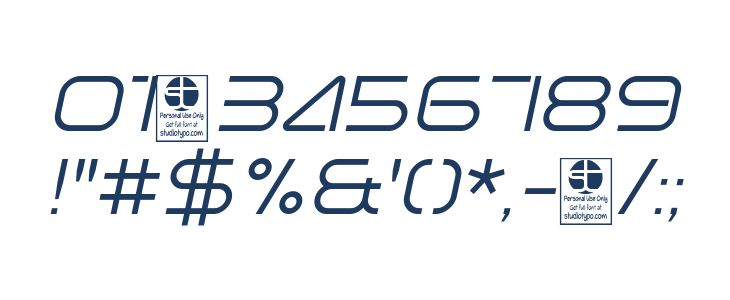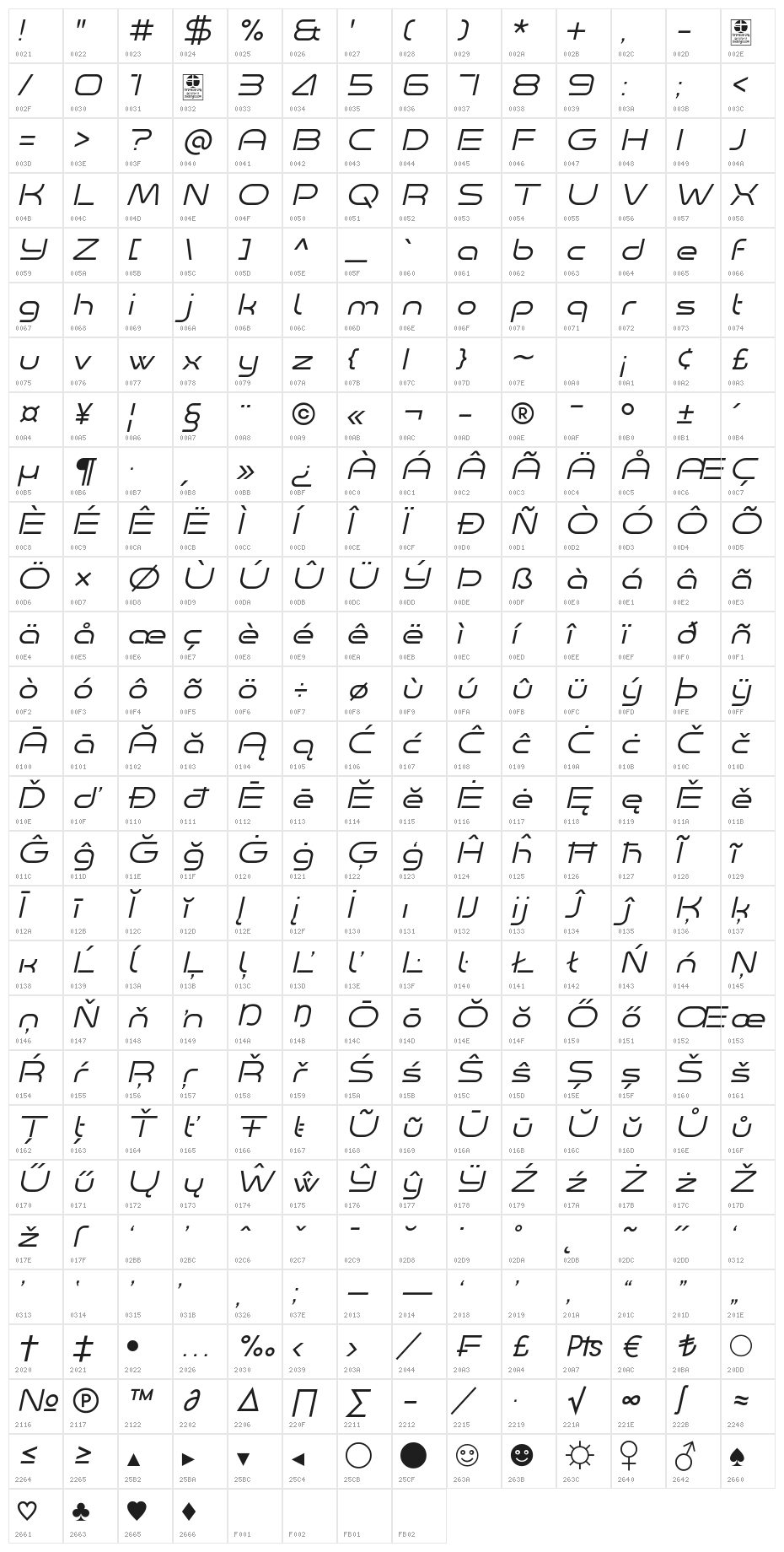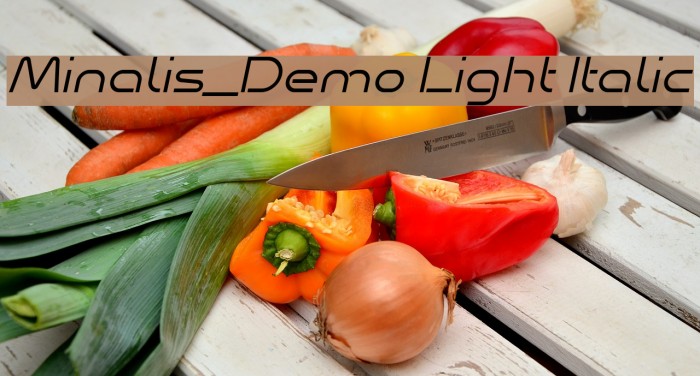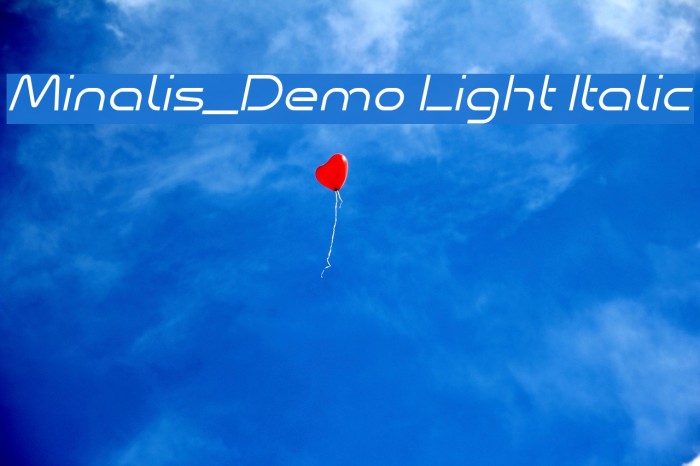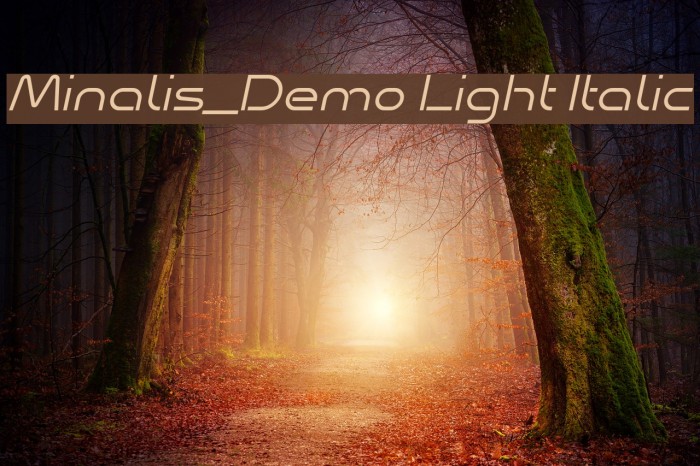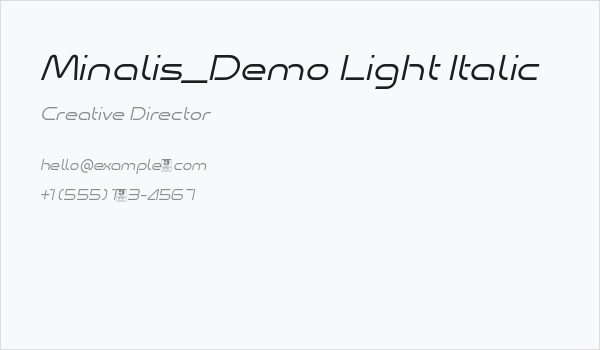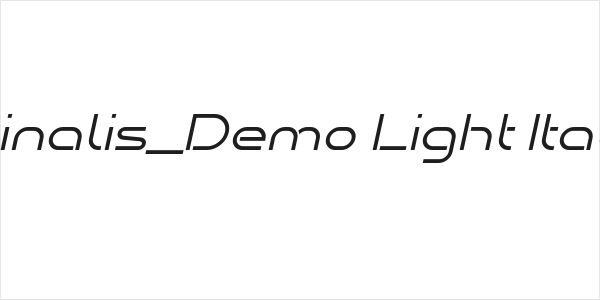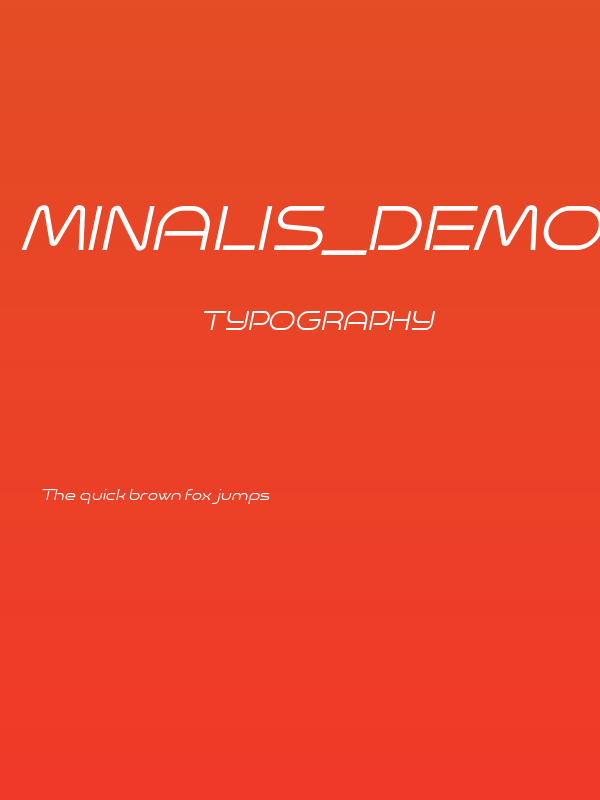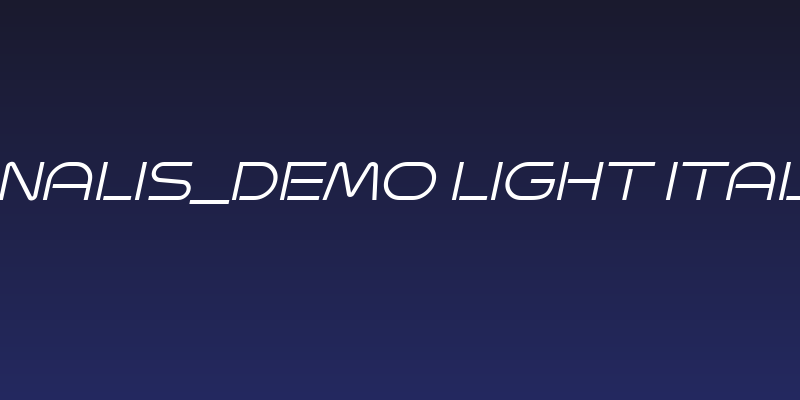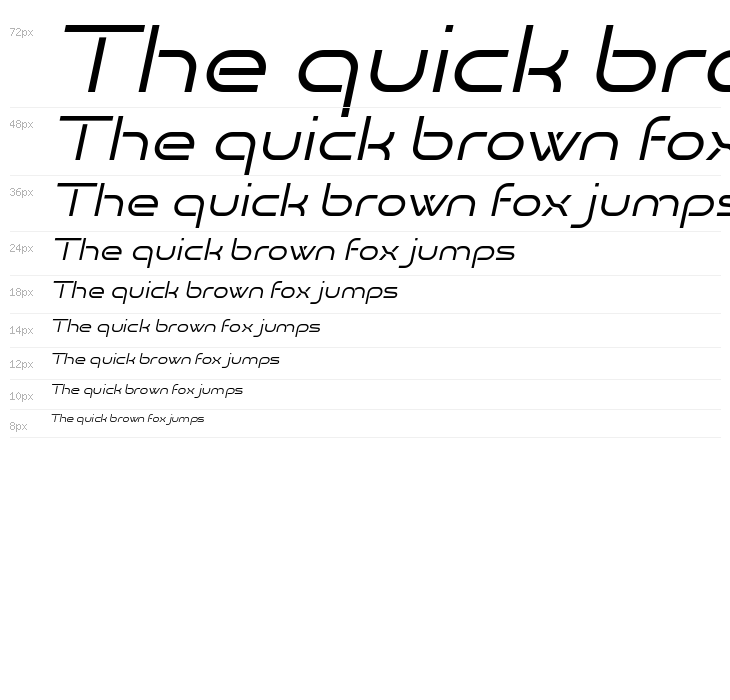
Minalis_Demo Light Italic Font
Minalis_Demo Light Italic Description
This font features a sleek and modern design with a light and airy feel. The characters are slightly italicized, giving them a dynamic and forward-leaning appearance. The strokes are consistent and smooth, with rounded edges that add a touch of softness to the overall look. The font maintains a uniform width across all characters, ensuring a balanced and harmonious appearance. It is well-suited for contemporary designs that require a clean and sophisticated aesthetic.
Proposed ProjectsIdeal for branding, modern web design, tech-related projects, and minimalist posters.